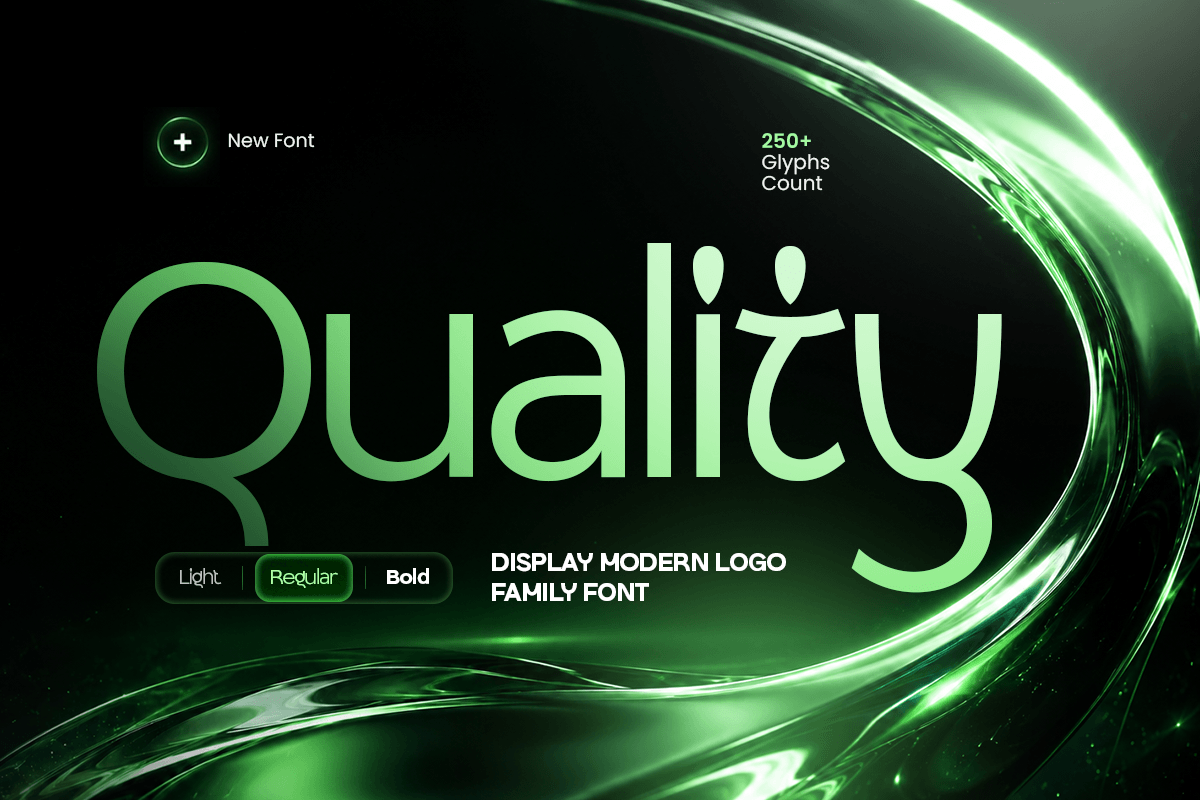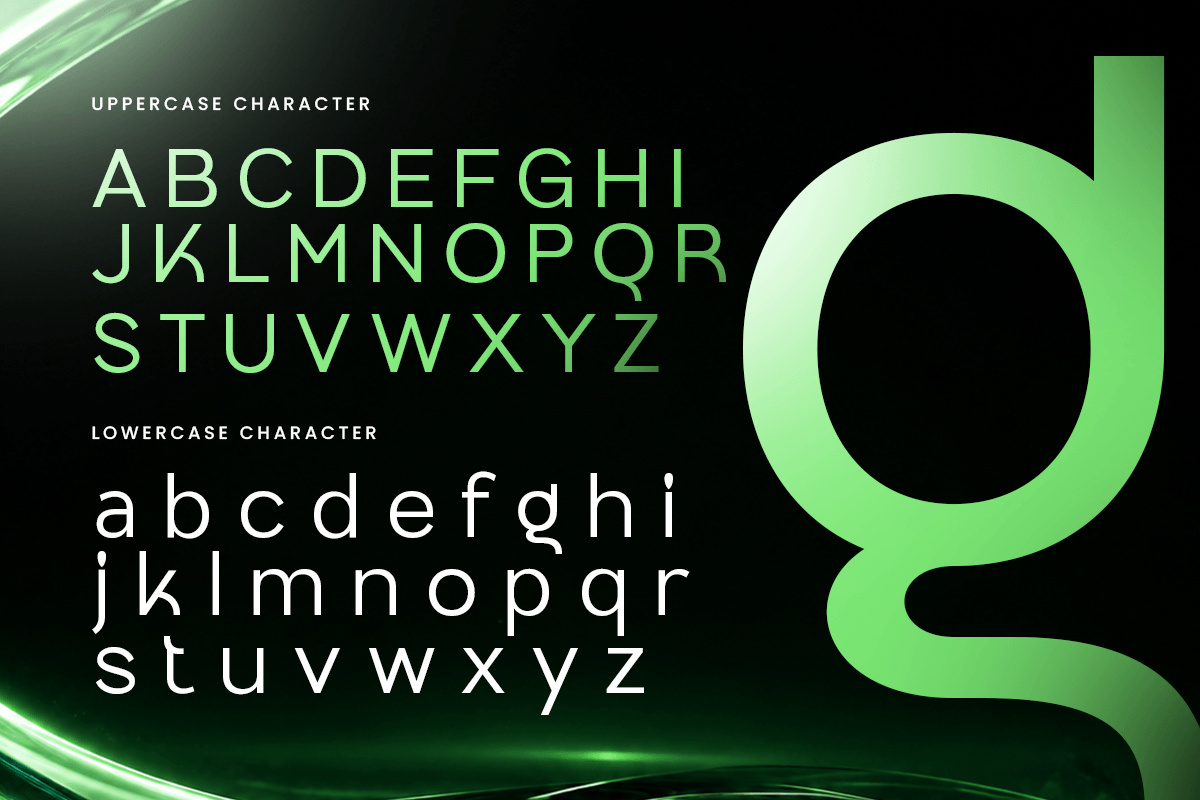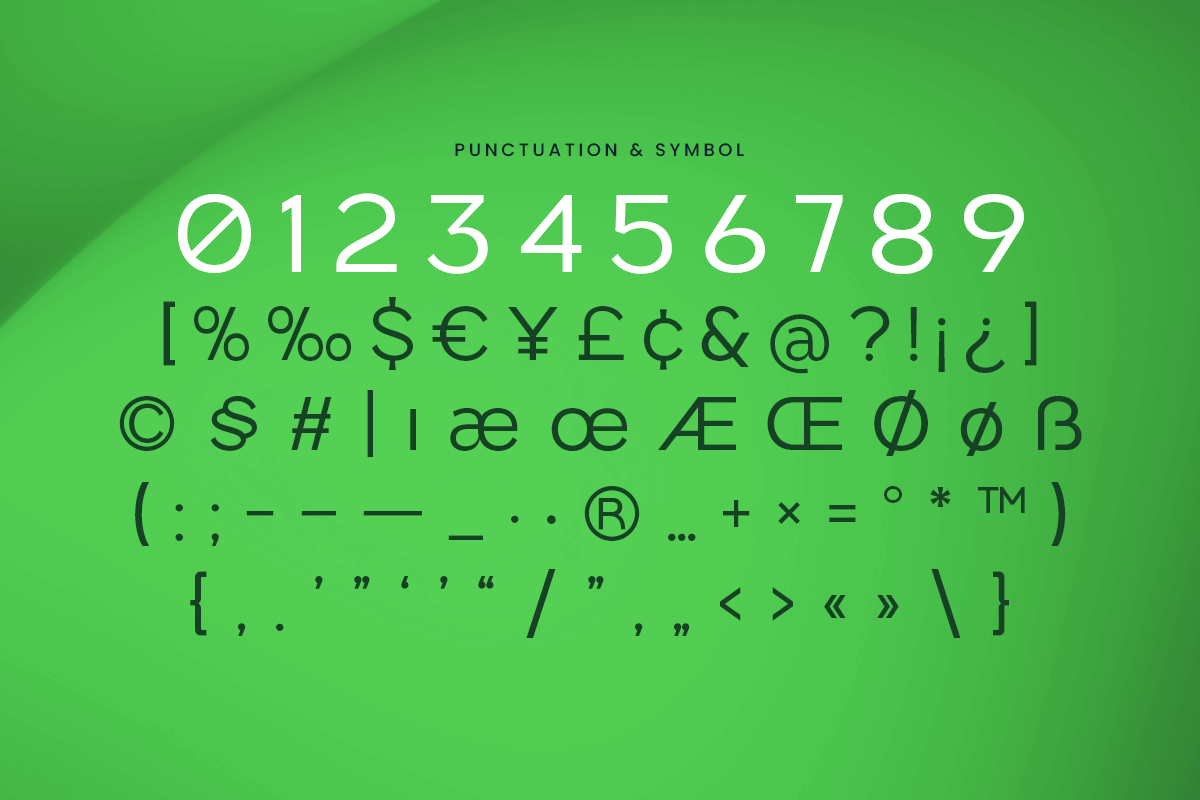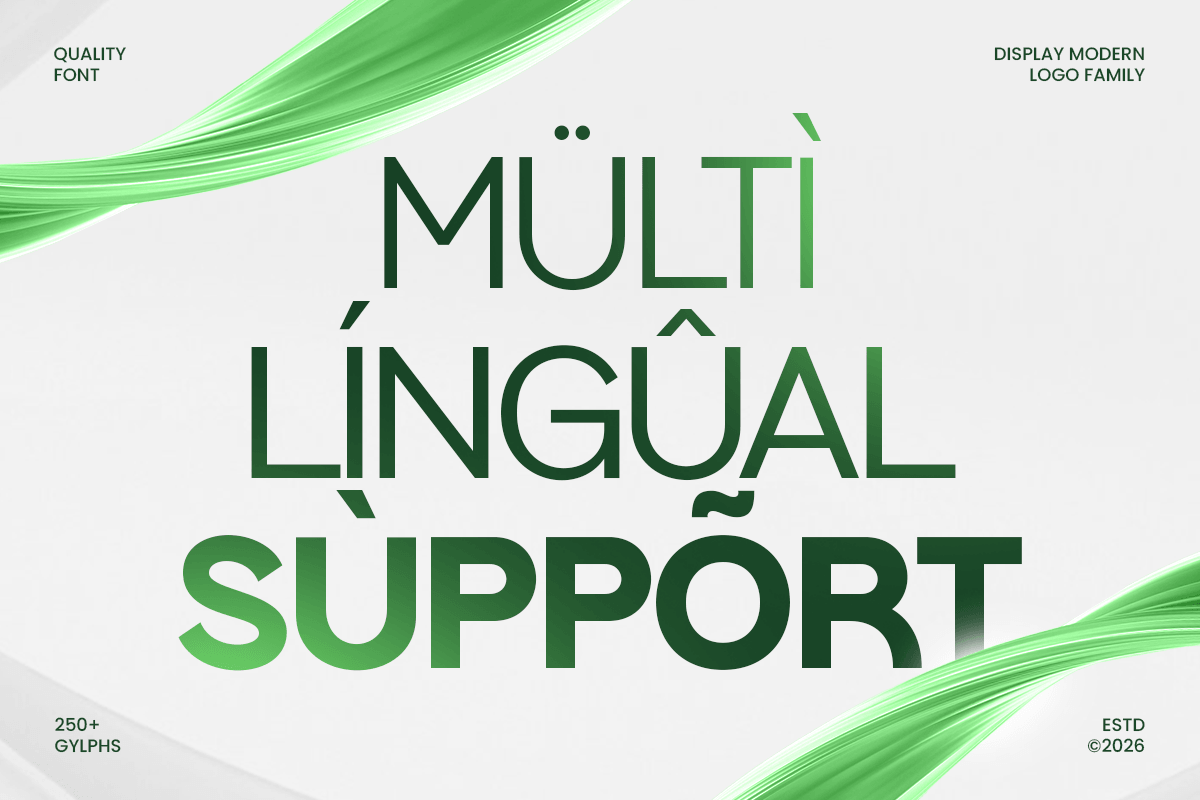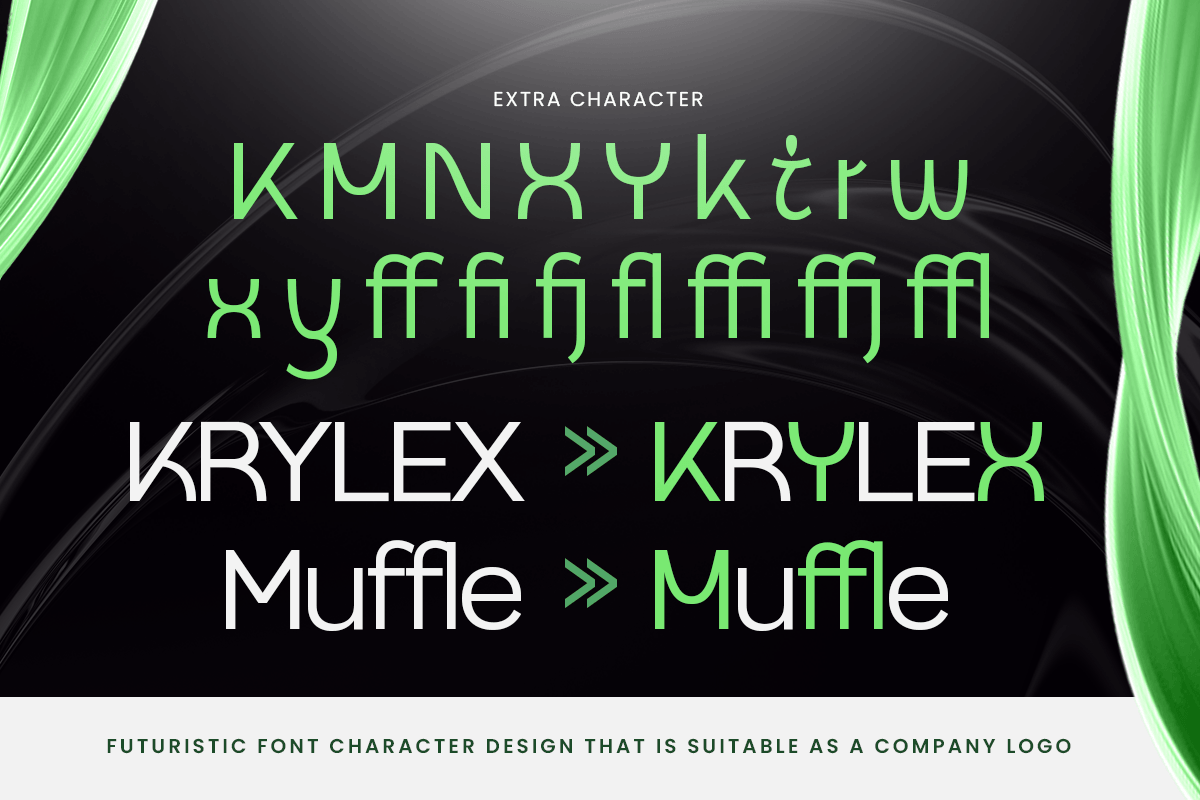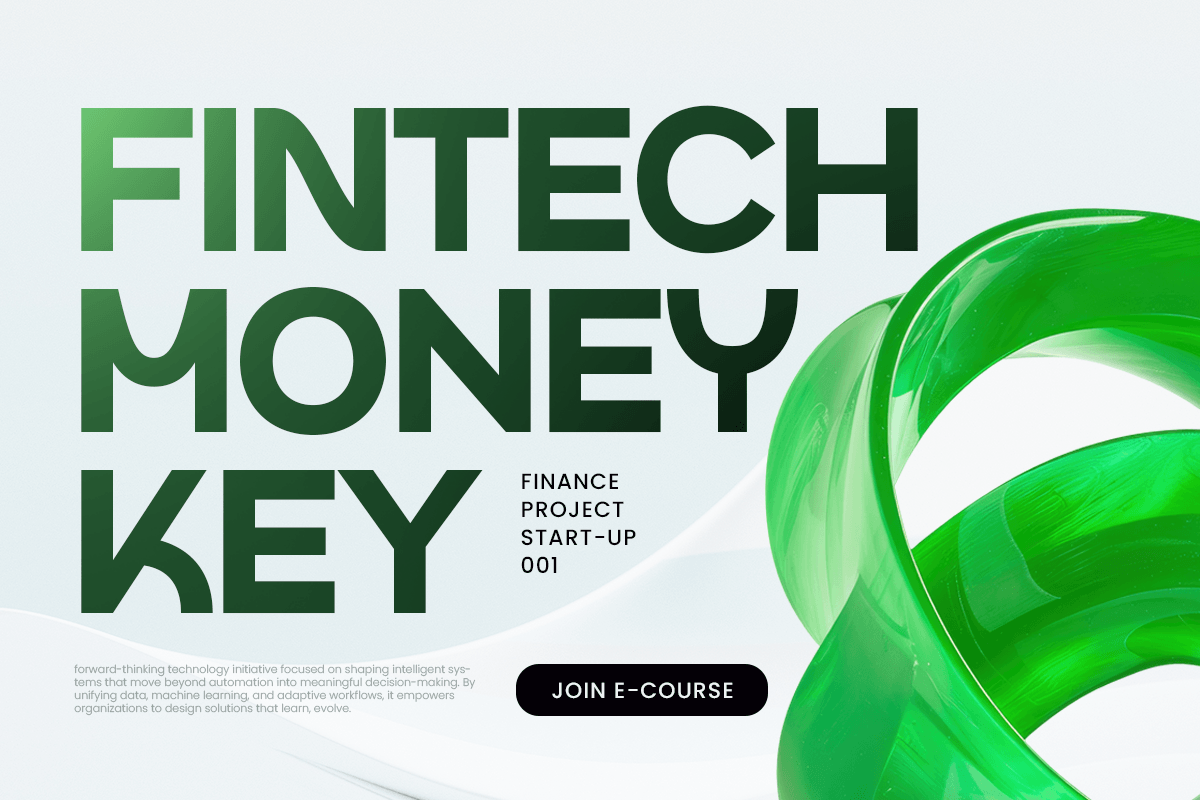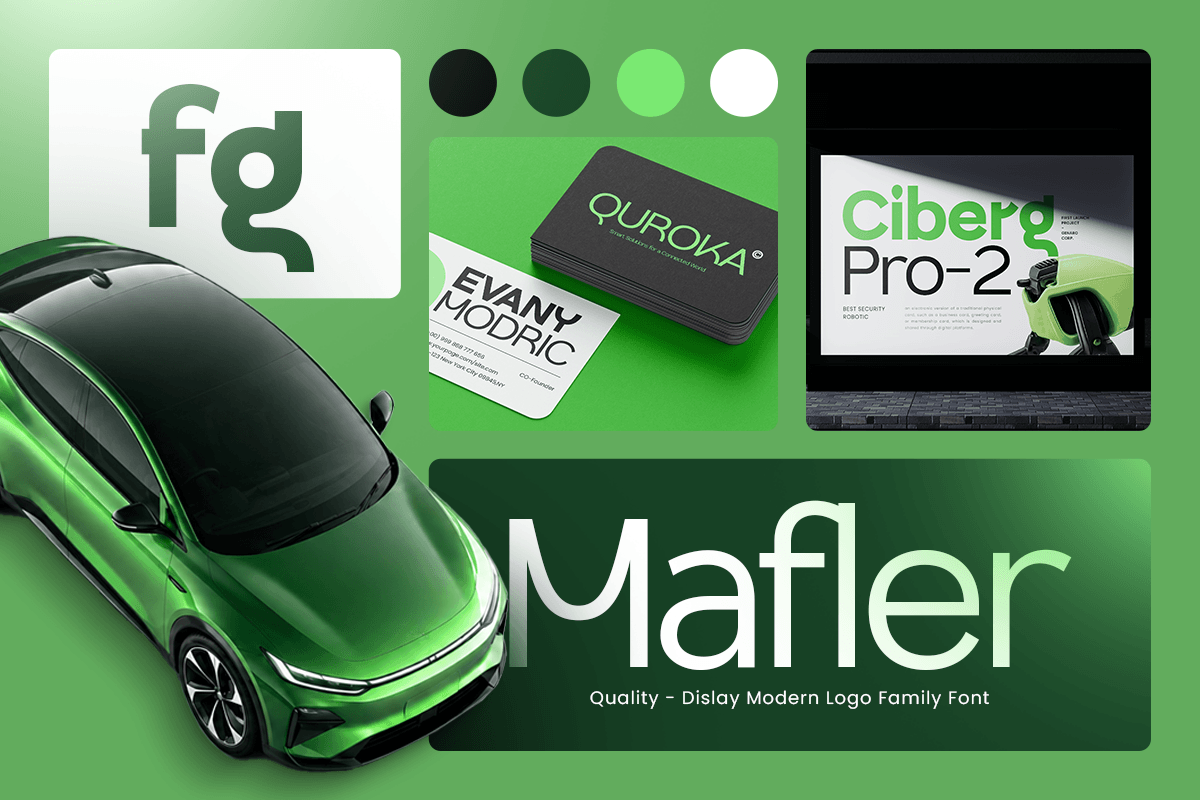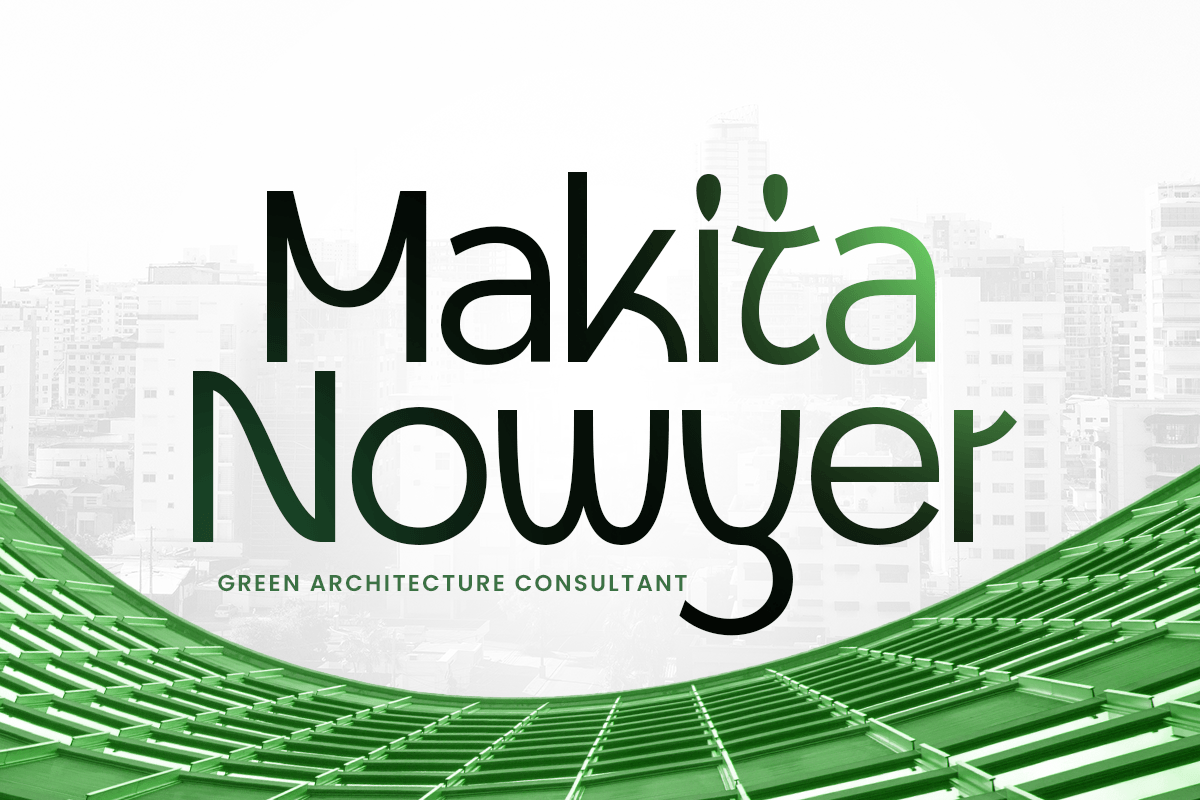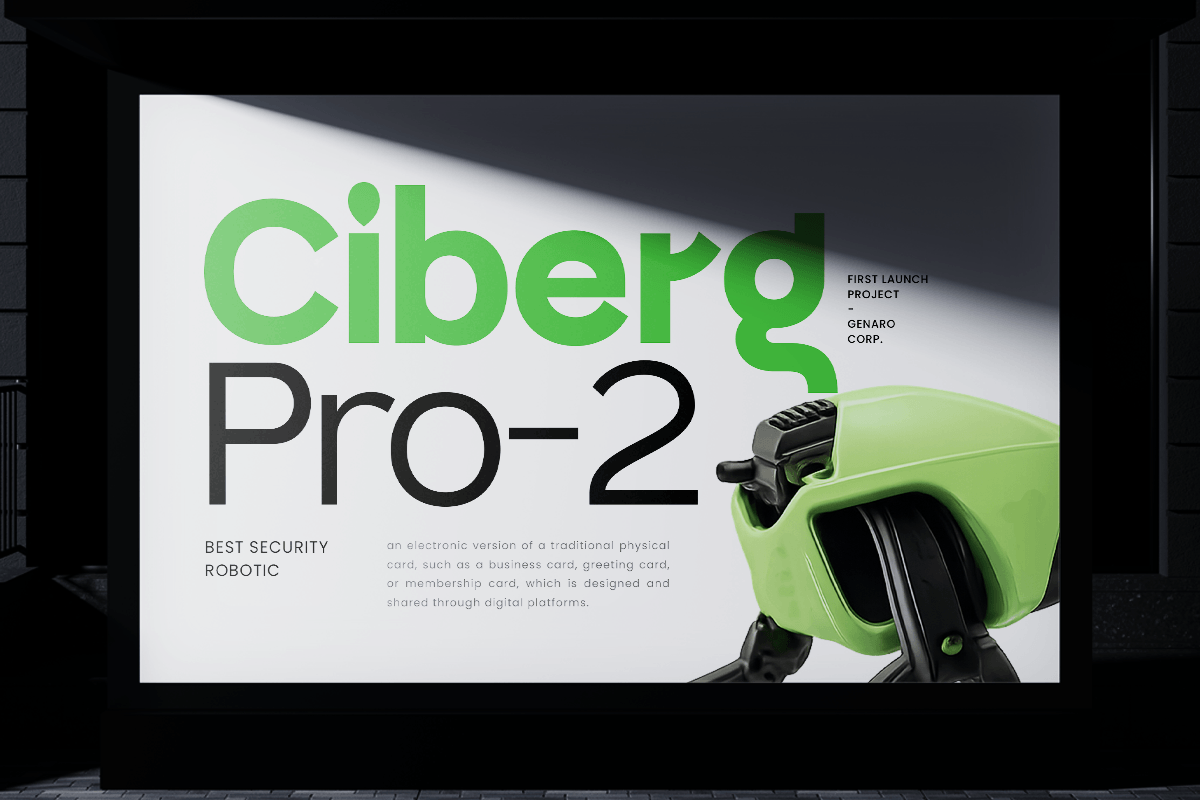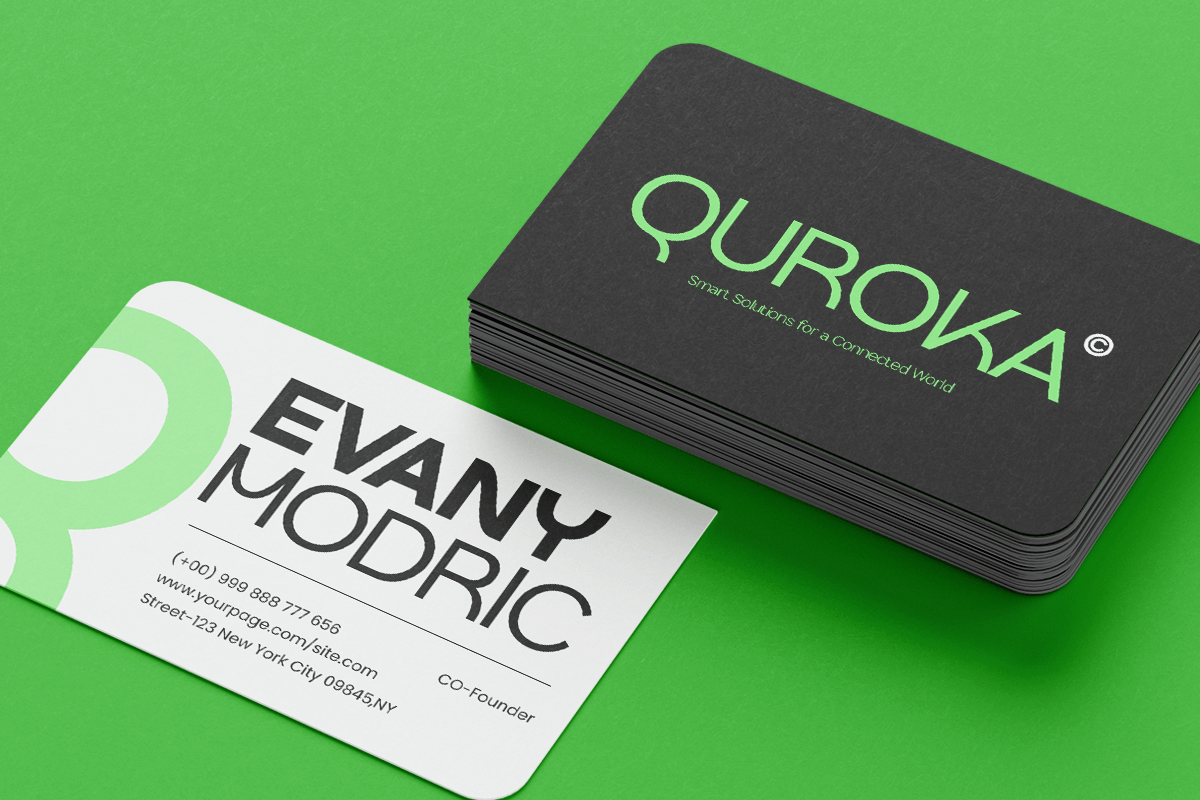
Matrix – Display Modern Logo Font Family
Matrix is a corporate minimal modern logo display font family designed to create strong, professional, and consistent brand identities. With clean geometric structures, refined proportions, and a modern display aesthetic, this typeface family is perfect for corporate logos, business branding, digital products, presentations, and premium visual systems.
Built for versatility, Matrix provides a balanced combination of simplicity and personality. Its minimal construction allows designers to create clear and memorable brand marks while maintaining a professional appearance across multiple applications. From corporate identity systems to website headers and packaging designs, this font family delivers consistency and modern sophistication.
Ideal for technology companies, startups, agencies, architecture firms, and contemporary brands, Matrix offers a complete typographic solution for designers seeking a clean and future-focused visual language.
Matrix – Display Modern Logo Font Family Font Features
- Modern font family designed for corporate and logo branding
- Minimal geometric style with clean professional aesthetics
- Perfect for logos, presentations, websites, packaging, and identity systems
- Available with 3 weights: light, regular and bold version
- Versatile display styles for headlines and brand communication
- Balanced letterforms with excellent readability
- Uppercase, lowercase, numerals, and punctuation included
- OpenType features for advanced typographic flexibility
Multilingual support for
Afrikaans, Albanian, Asu, Basque, Bemba, Bena, Breton, Chiga, Cornish, Dutch, English, Estonian, Filipino, Finnish, Friulian, Galician, German, Gusii, Indonesian, Irish, Italian, Kabuverdianu, Kalenjin, Kinyarwanda, Luo, Luxembourgish, Luyia, Machame, Makhuwa-Meetto, Makonde, Malagasy, Manx, Morisyen, North Ndebele, Nyankole, Oromo, Portuguese, Quechua, Romansh, Rombo, Rundi, Rwa, Samburu, Sango, Sangu, Scottish Gaelic, Sena, Shambala, Shona, Soga, Somali, Spanish, Swahili, Swedish, Swiss, and more.
Build a powerful and timeless identity with Matrix – the ultimate corporate font family for minimal branding, modern logos, and professional visual communication. ✨